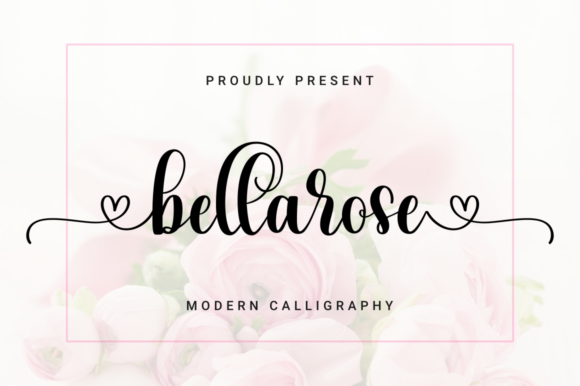
Journey to Enchantment with Bellarose: A Script Font That Evokes Elegance and Charm
In a realm of digital expression, fonts aren't mere characters; they are the brushstrokes that paint the canvas of your creativity. As you seek a font that captures the essence of your artistic vision, let Bellarose unveil its captivating charm, leading you to a world where words dance with grace and beauty.
Step into the realm of Bellarose, a script font adorned with a touch of whimsy and a sprinkle of elegance. Its smooth lines flow with a natural rhythm, resembling the delicate strokes of a calligraphy master. Each letter is a piece of art, meticulously crafted to evoke emotions and leave a lasting impression.
Unleash Your Creativity with Versatile Applications:
From the intimate confines of your wedding invitations to the vibrant world of social media, Bellarose effortlessly adapts to a myriad of creative endeavors. With its innate charm, it transforms the mundane into the magnificent, adding a touch of sophistication to every project. Whether you're a designer seeking to elevate your digital creations or a DIY enthusiast yearning to personalize your projects, Bellarose stands as your steadfast companion.
Exceptional Features for Unparalleled Design:
2. Varying Baseline: Bask in the visual delight of a font that dances and flows, creating a sense of depth and dynamism.
3. Smooth Lines: Witness the beauty of seamless transitions, as lines intertwine with grace and fluidity, leaving a trail of elegance in their wake.
4. Gorgeous Glyphs: Discover a treasure trove of intricate and captivating glyphs, each a testament to the meticulous artistry that went into crafting this extraordinary font.
5. Stunning Alternates: Embrace the power of choice, as a diverse selection of alternate characters awaits you, allowing you to tailor your designs to perfection.
With Bellarose, you possess a font that not only adorns your creations but also touches the hearts of your audience. Prepare to be captivated by its allure, as it transforms your artistic vision into a symphony of visual delight. Take the first step into the world of Bellarose today, and let your creativity flourish like never before.